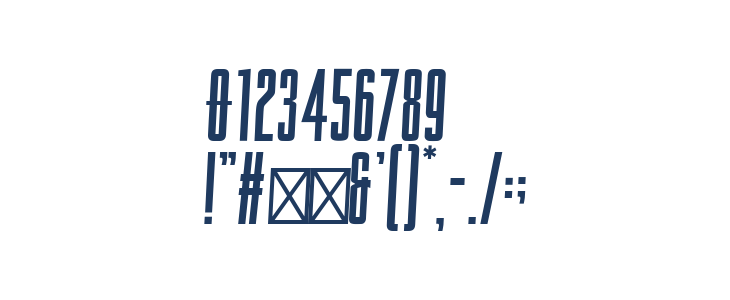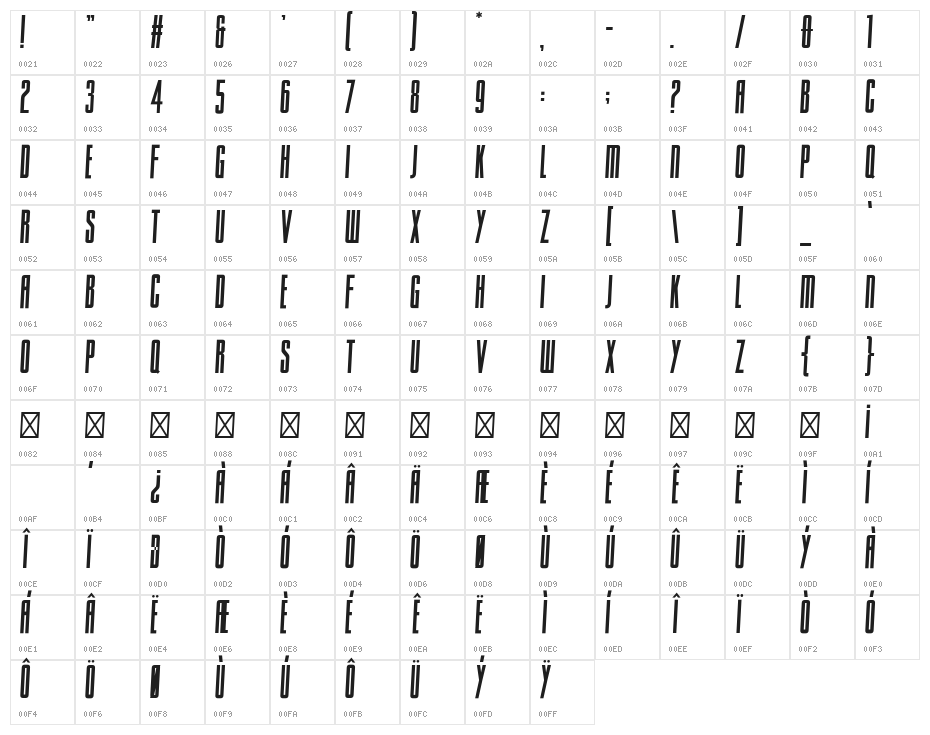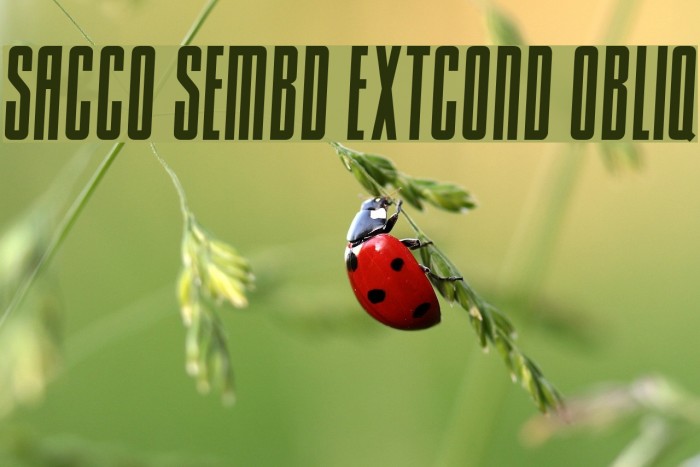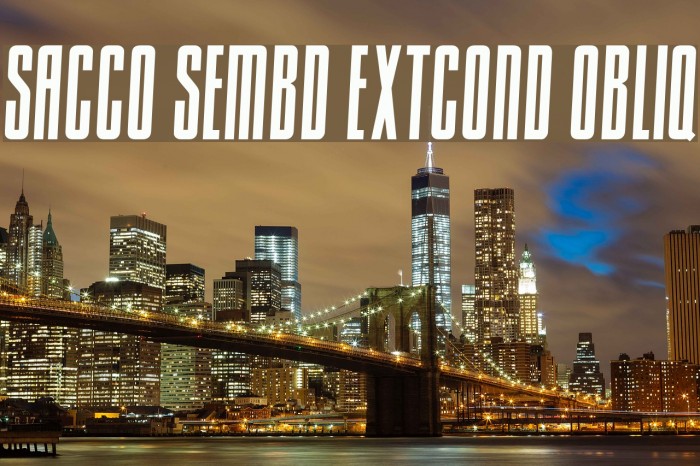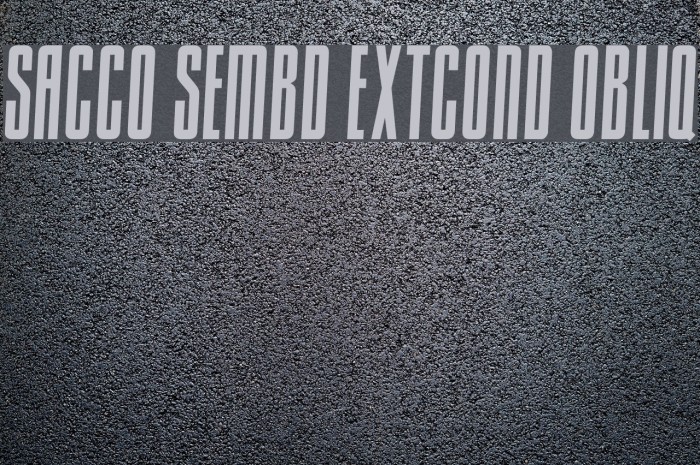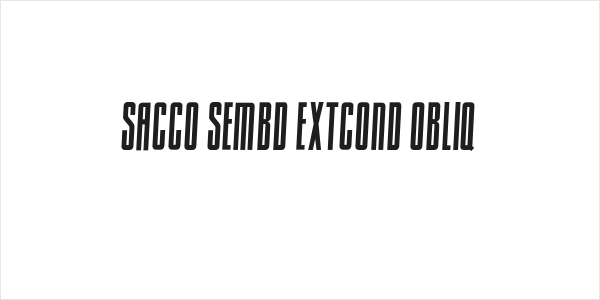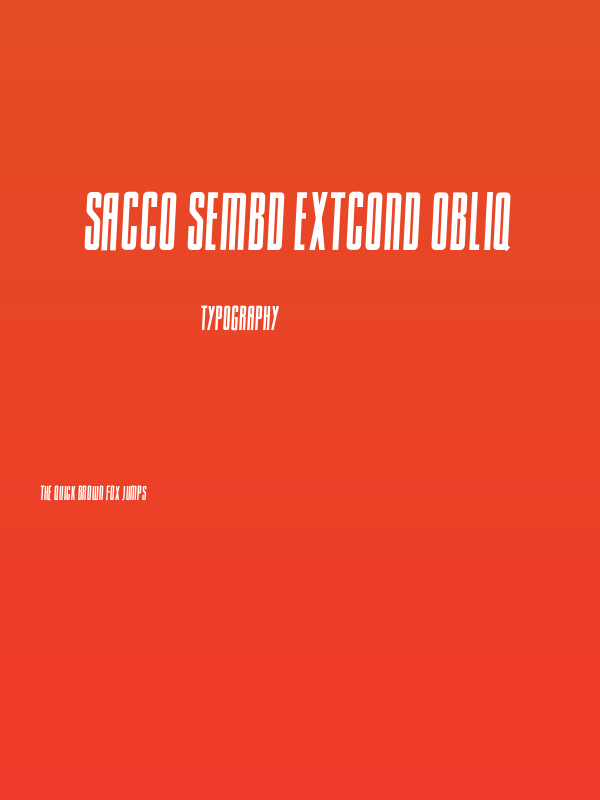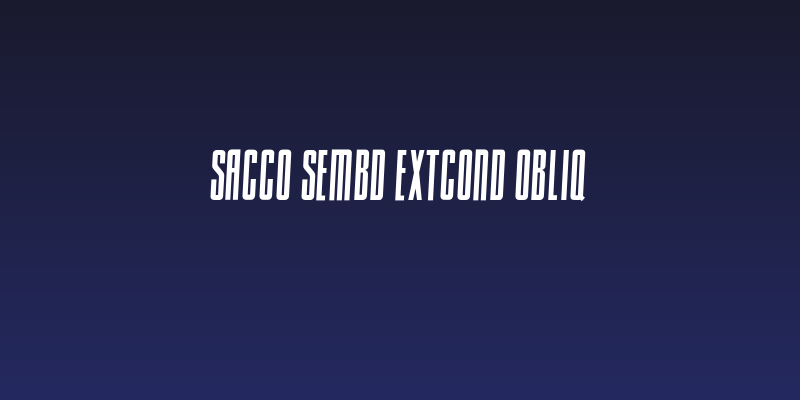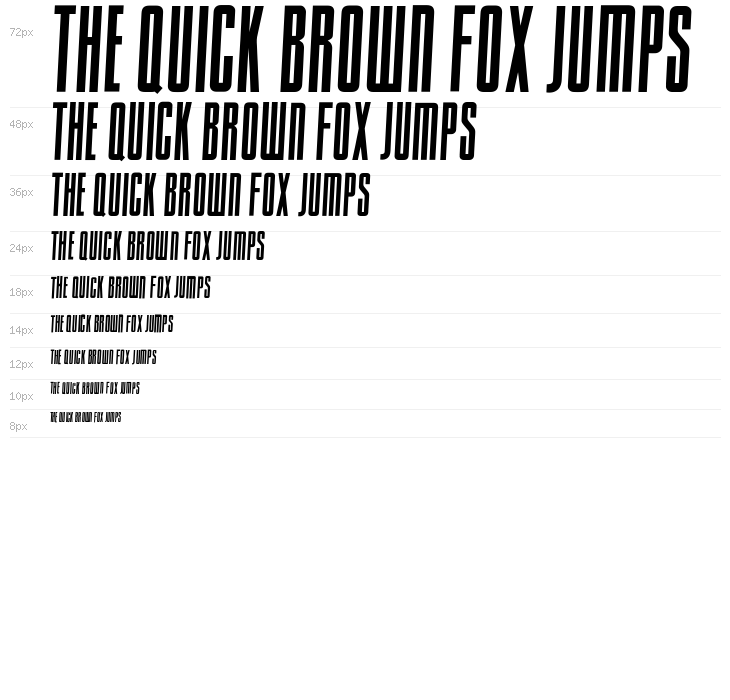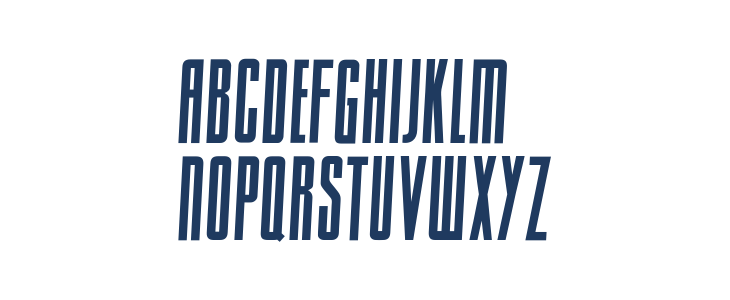
Sacco SemBd ExtCond Obliq Font
Sacco SemBd ExtCond Obliq Description
This font features a bold and dynamic style with an extended and condensed appearance. The characters are oblique, giving them a forward-leaning posture that adds a sense of motion and urgency. The uppercase and lowercase letters maintain a consistent height, contributing to a uniform look. The numerals and special characters are designed to match the overall aesthetic, ensuring cohesion across all text elements. The font's sharp angles and clean lines make it suitable for modern and edgy designs.